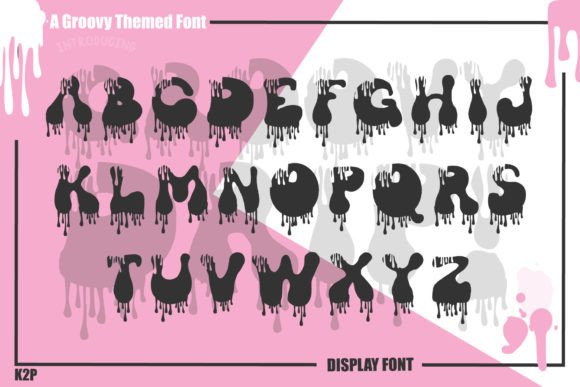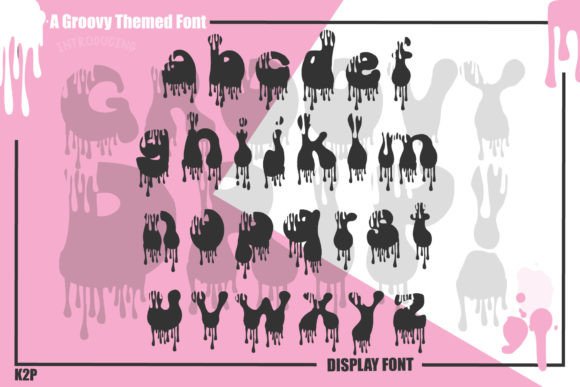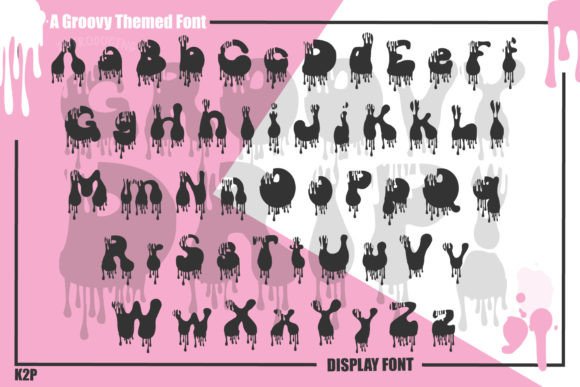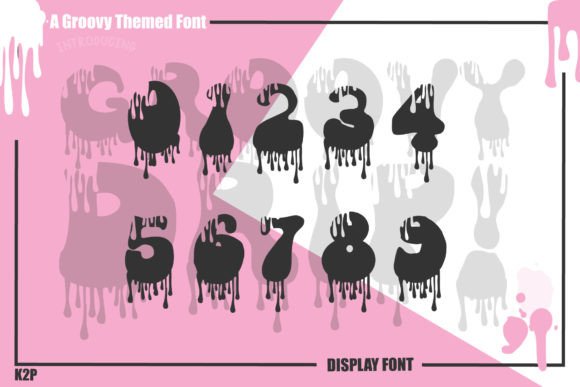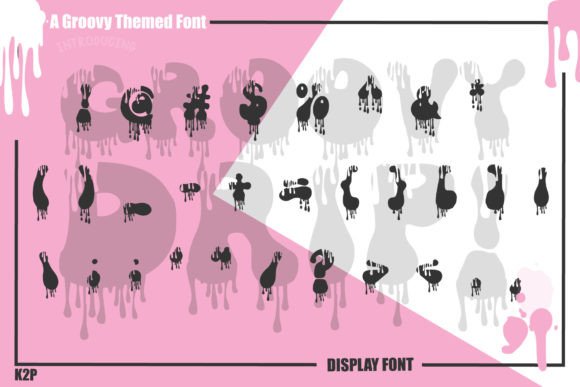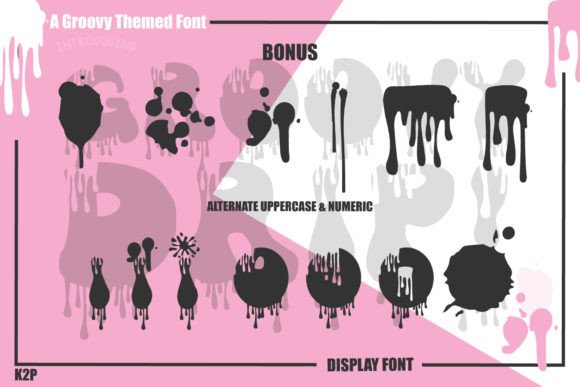
Groovy Drip! Font: The Ultimate Retro Display Font for Your Creative Projects
Are you tired of using the same old fonts for your designs? Look no further! Introducing Groovy Drip!, a fun, retro, and whimsical display font that’s sure to add a touch of nostalgia and playfulness to your creations. With its incredibly distinct and timeless style, Groovy Drip! is the perfect choice for designers and crafters looking to create spectacular designs that stand out from the crowd.
The Retro Charm of Groovy Drip!
Groovy Drip! is a font that takes inspiration from the retro era of the 60s and 70s, with its bold, colorful, and drippy style. The font features bold lines, curvaceous shapes, and a dash of whimsy, making it perfect for designs that require a fun and carefree vibe. Whether you’re creating posters, flyers, or social media graphics, Groovy Drip! is sure to add a touch of retro charm that will make your designs pop.
Key Features of Groovy Drip!
- Unique and Distinctive Style: Groovy Drip! boasts an incredibly unique and distinctive style that’s sure to grab attention.
- Retro and Whimsical: The font’s retro and whimsical design makes it perfect for designs that require a fun and carefree vibe.
- Timeless Appeal: Despite being inspired by the retro era, Groovy Drip! has a timeless appeal that will ensure your designs remain relevant for years to come.
- Highly Versatile: Groovy Drip! is a highly versatile font that can be used for a wide range of design projects, from posters and flyers to social media graphics and more.
How to Use Groovy Drip! in Your Designs
Groovy Drip! is an incredibly easy font to use, and its versatility makes it perfect for a wide range of design projects. Here are a few ideas to get you started:
- Posters and Flyers: Use Groovy Drip! to create eye-catching posters and flyers for events, promotions, or products.
- Social Media Graphics: Add a touch of retro charm to your social media graphics, such as Facebook posts, Instagram stories, and Twitter headers.
- Logos and Branding: Use Groovy Drip! to create unique and memorable logos and branding materials for your business or personal projects.
- Crafting and DIY Projects: Groovy Drip! is also perfect for crafting and DIY projects, such as making signs, banners, or other decorative items.
Tips and Tricks for Getting the Most Out of Groovy Drip!
To get the most out of Groovy Drip!, here are a few tips and tricks to keep in mind:
- Experiment with Colors: Groovy Drip! looks amazing in bold, bright colors, so don’t be afraid to experiment and find the perfect color scheme for your design.
- Play with Textures and Patterns: Add an extra layer of depth and interest to your design by incorporating textures and patterns.
- Mix and Match with Other Fonts: Groovy Drip! pairs well with a wide range of fonts, so feel free to experiment and find the perfect combination for your design.